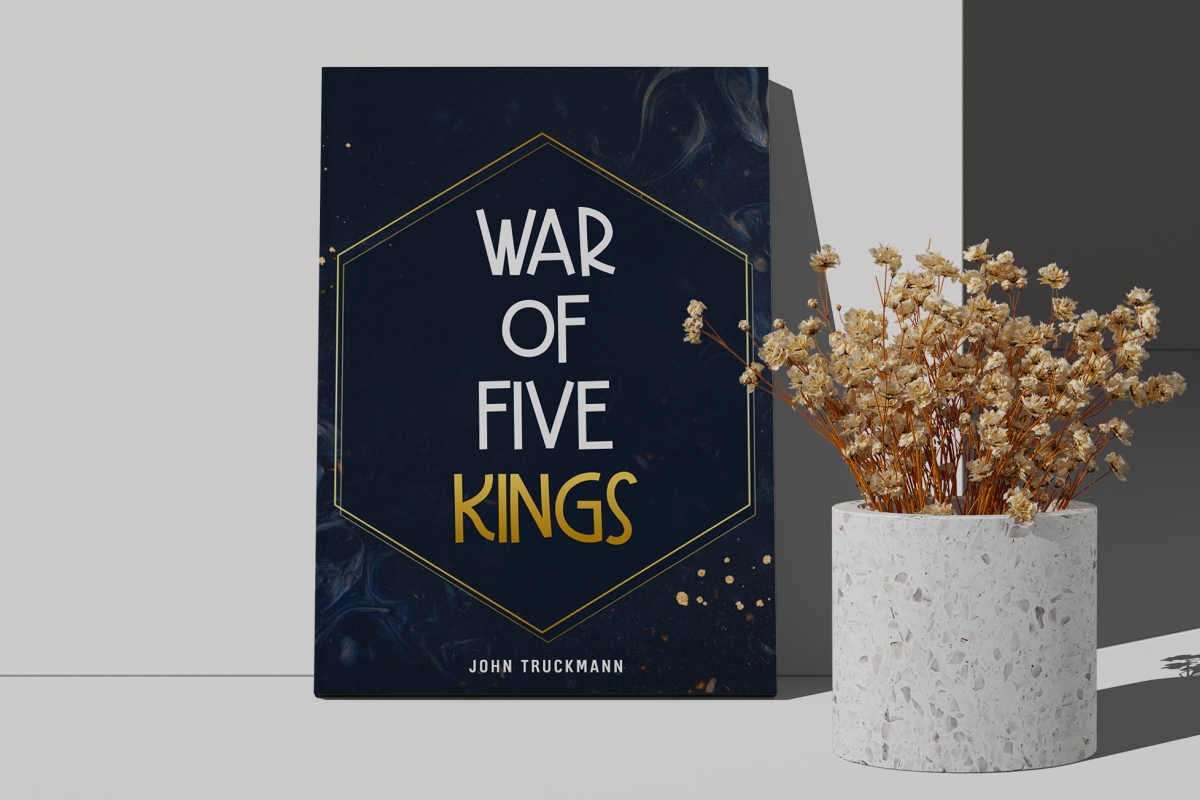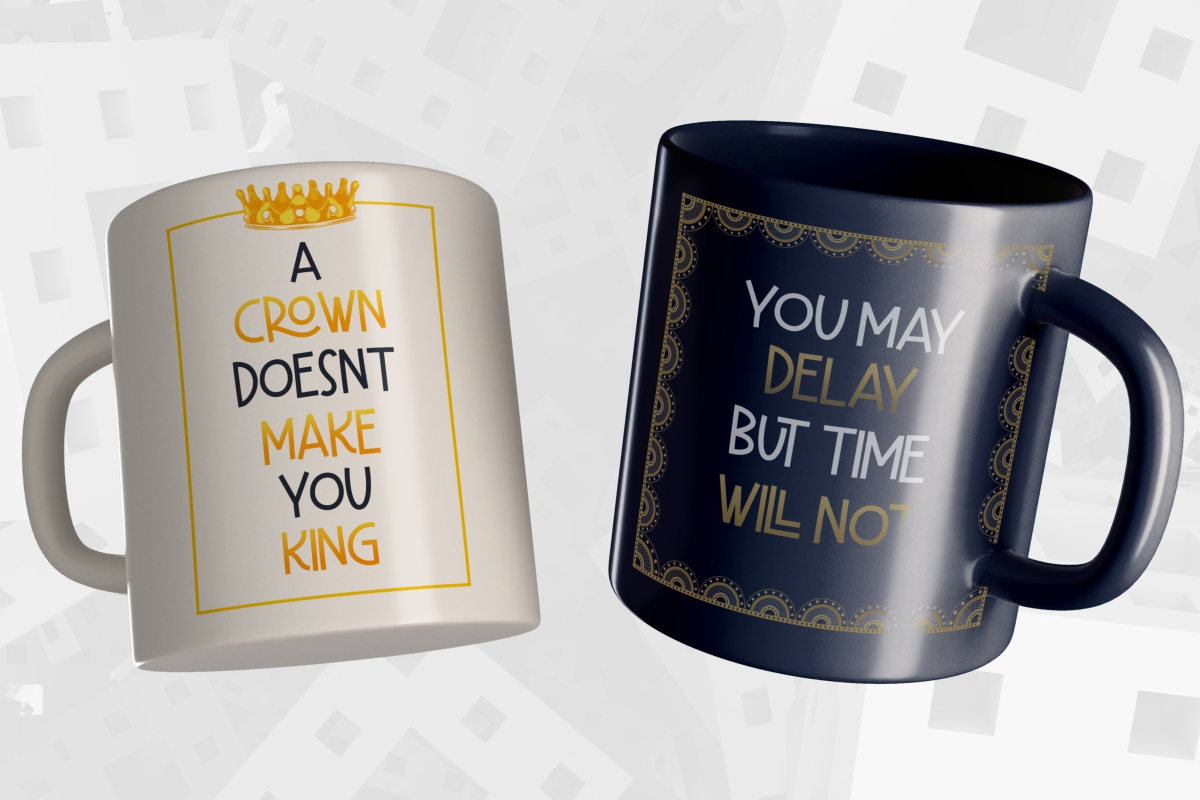
Clock Crown Font
Clock Crown Display Font
This is a playful and interesting decorative font, featuring a clock and crown on its alternative characters. This is a display typeface inspired by comic cartoon animation. The font designed to give a fun and playful feel on your projects such as posters, events, product packaging, comic, movies etc.
Clock Crown Font includes a complete set of Uppercase, Lowercase Basic Character, Number, Punctuation and Ligatures. This font also support Multi Language, you can access the special features with any software. You can use this font for any designs. Whether you’re using it for crafting, children related designs, schools, brandings, story book, digital design, promotion or making greeting cards, this font has the potential to become your favorite go to font, no matter the occasion!